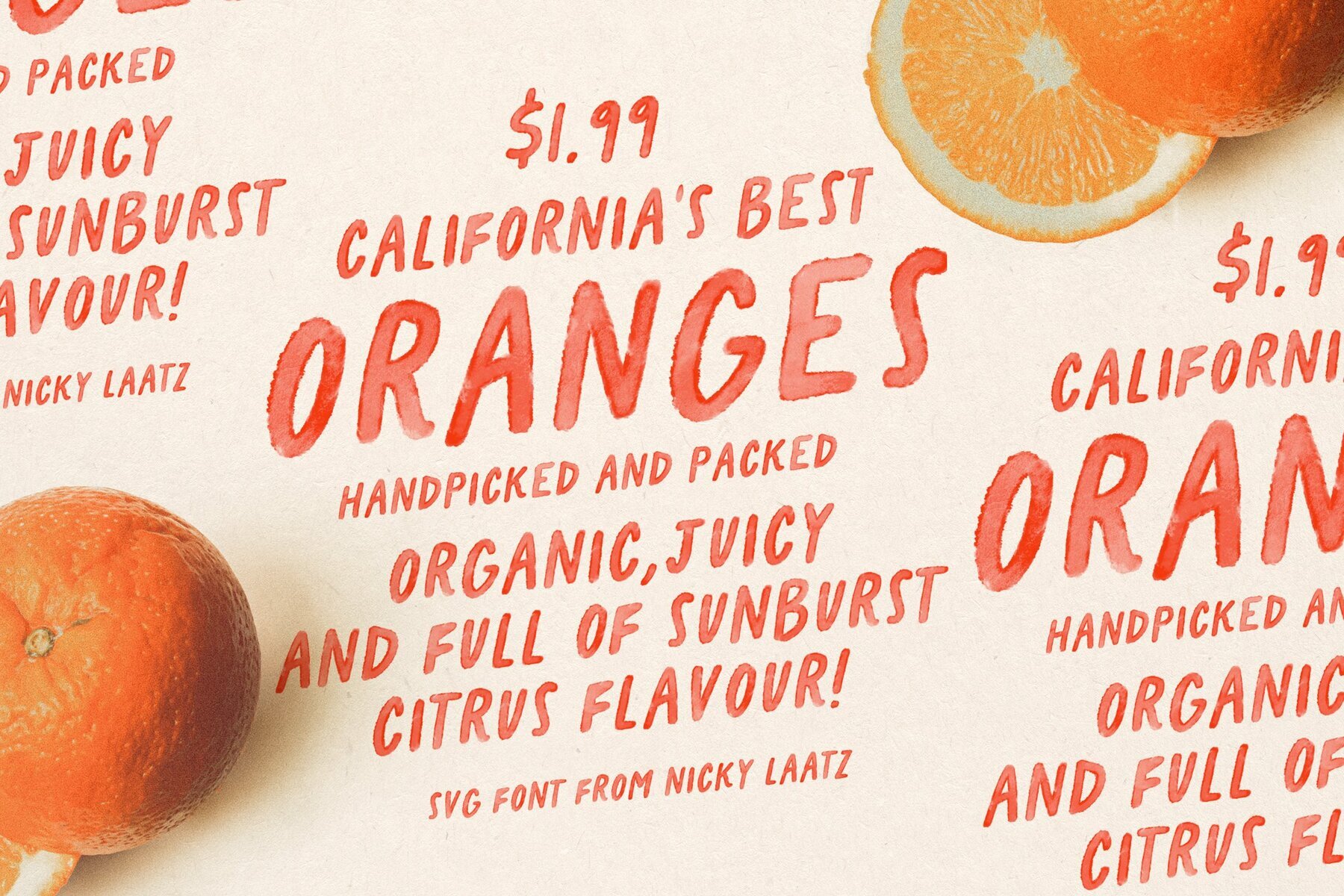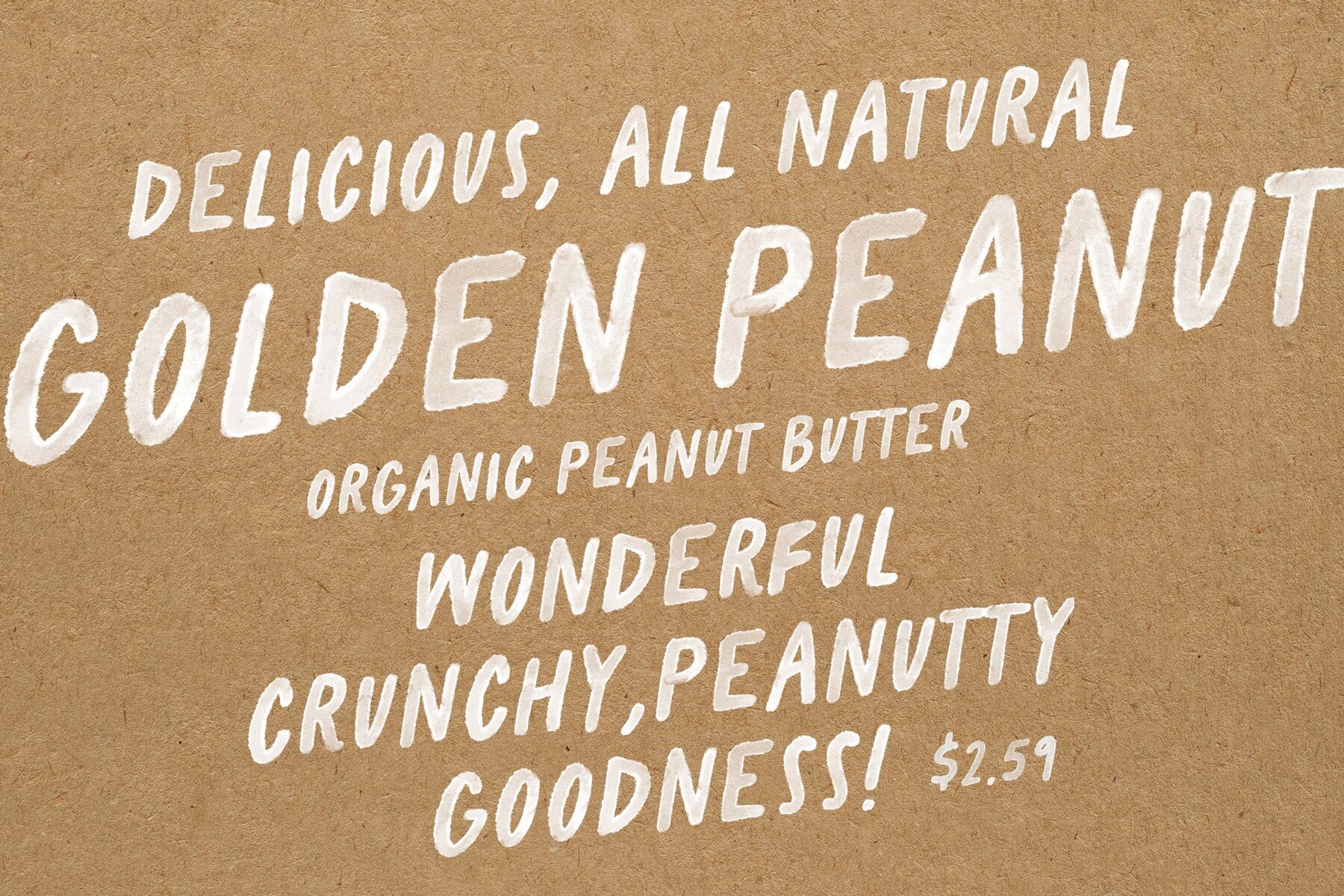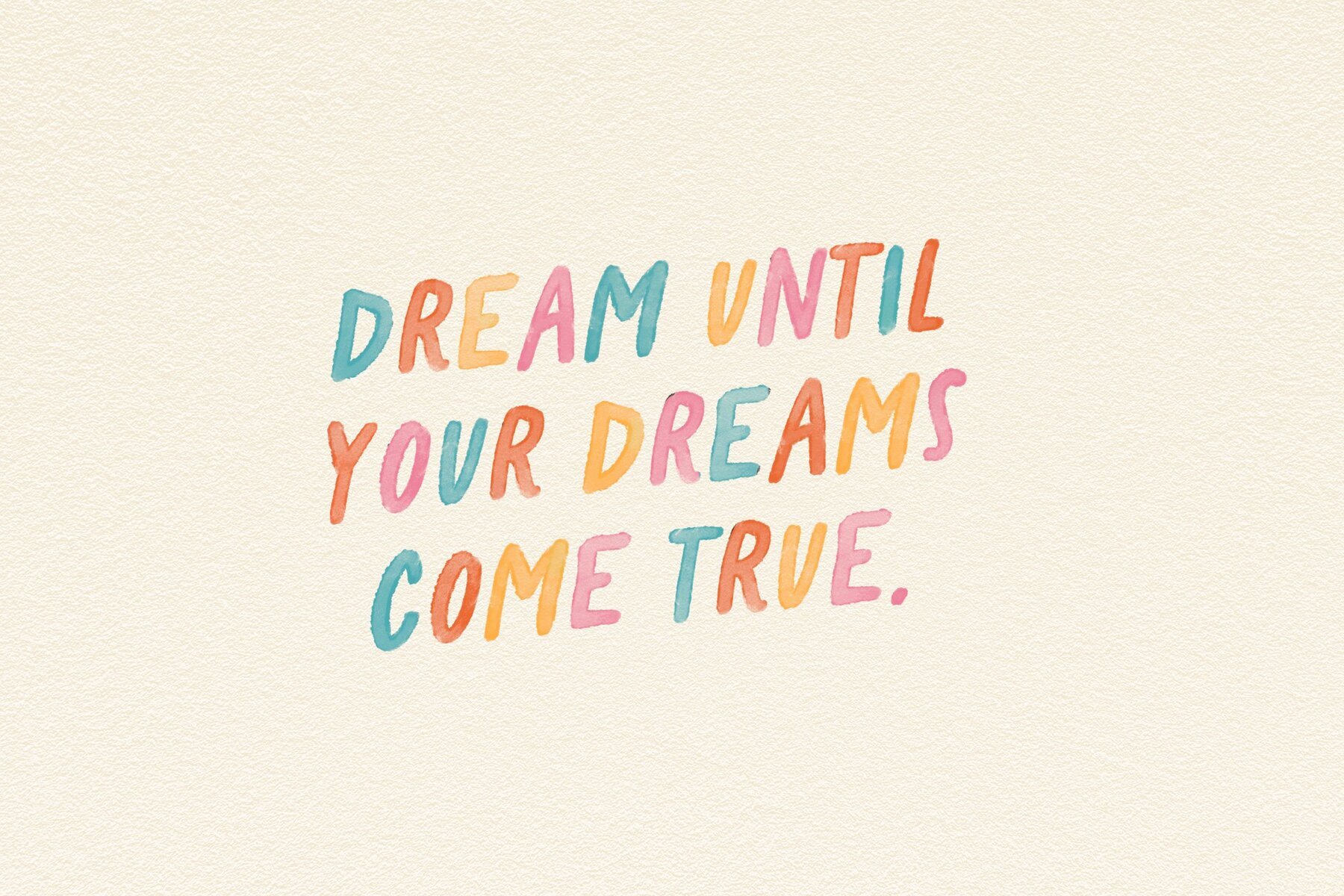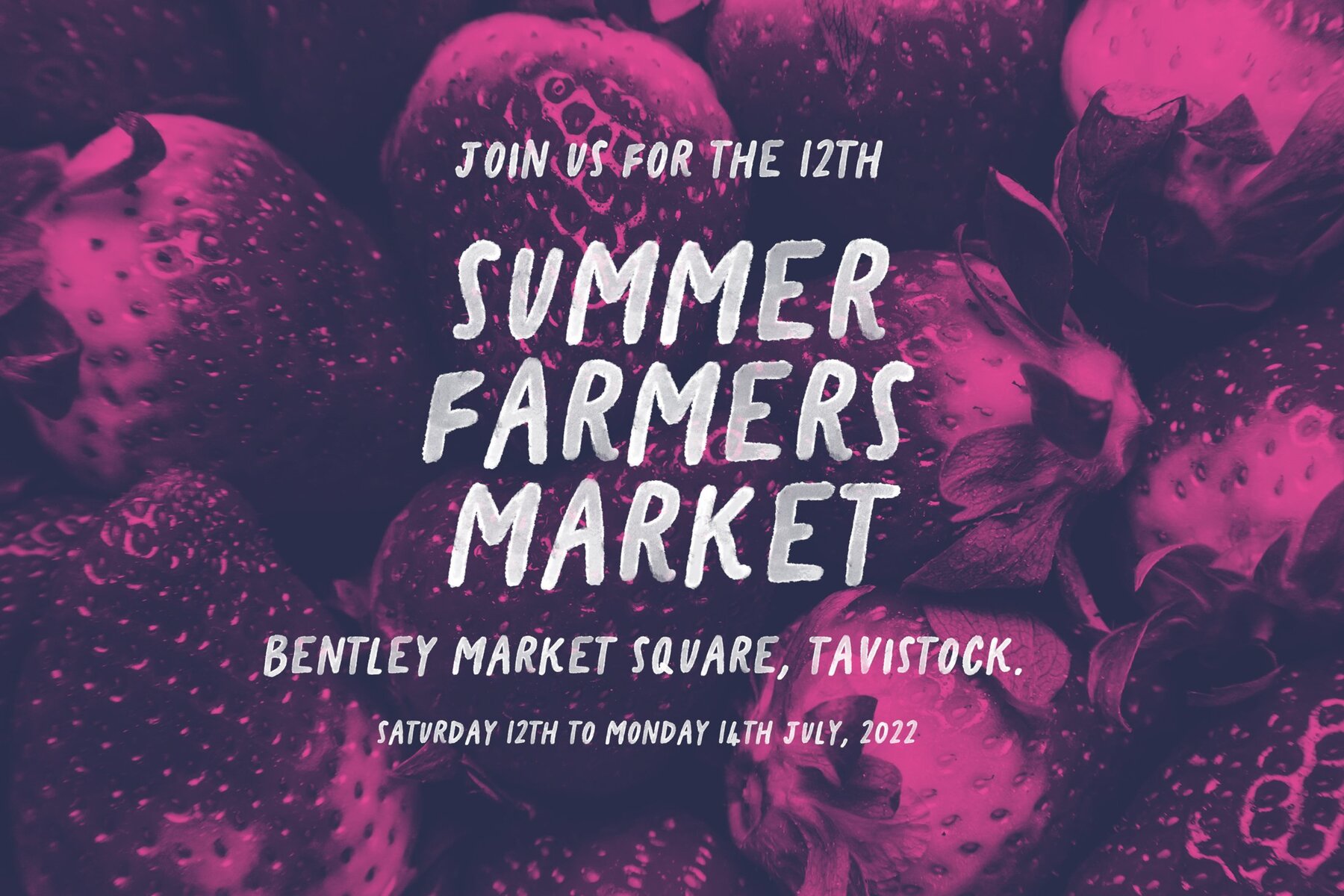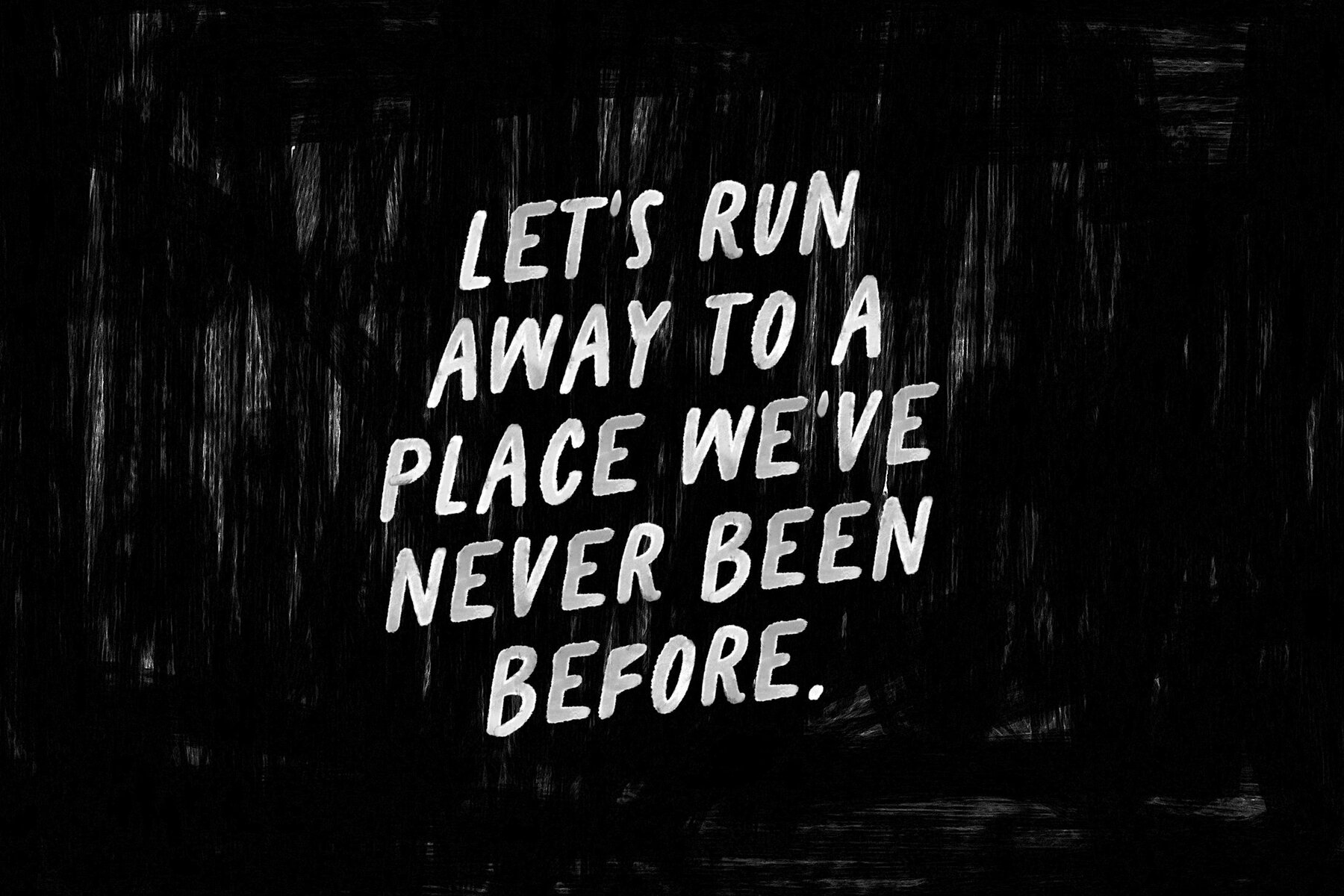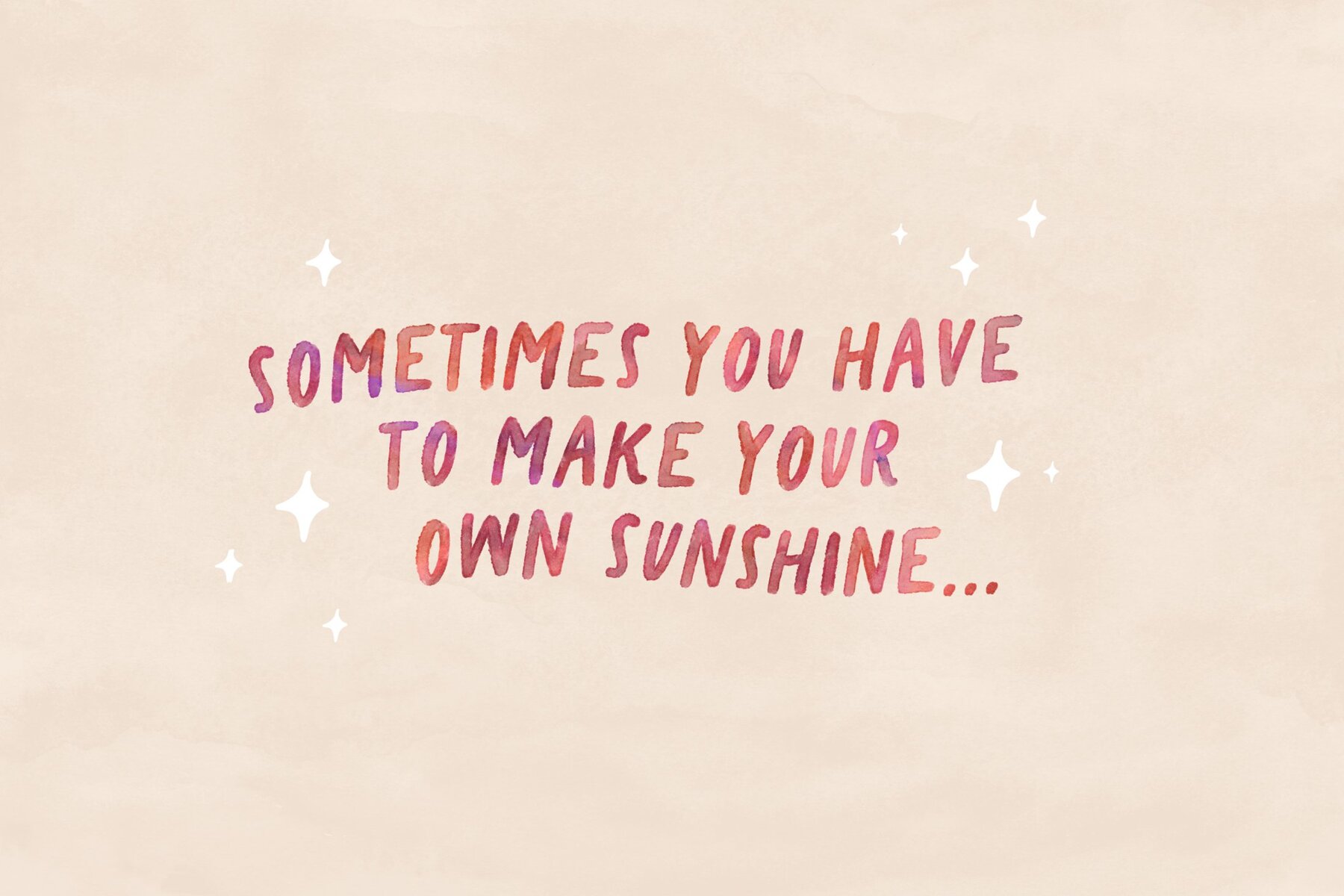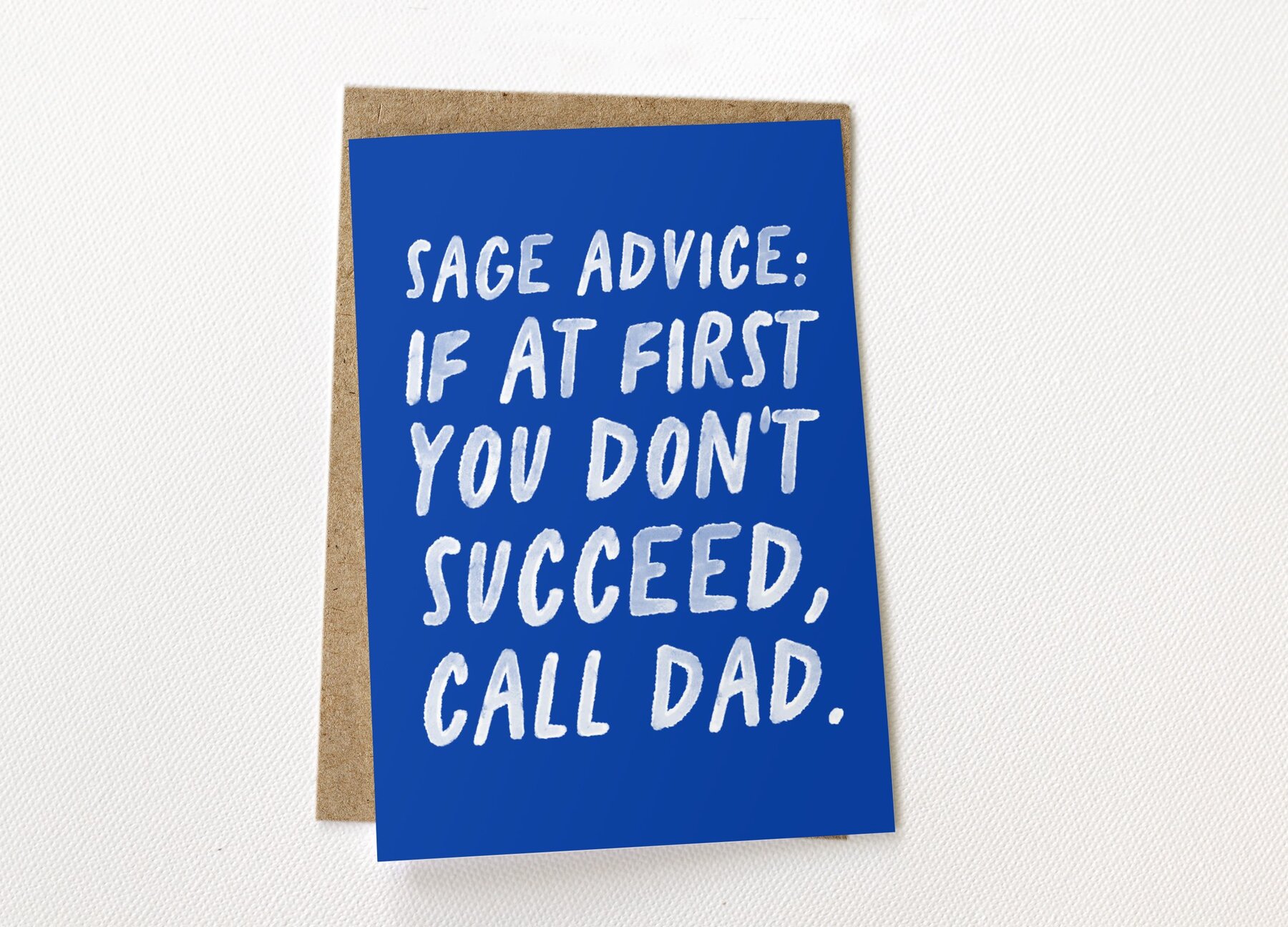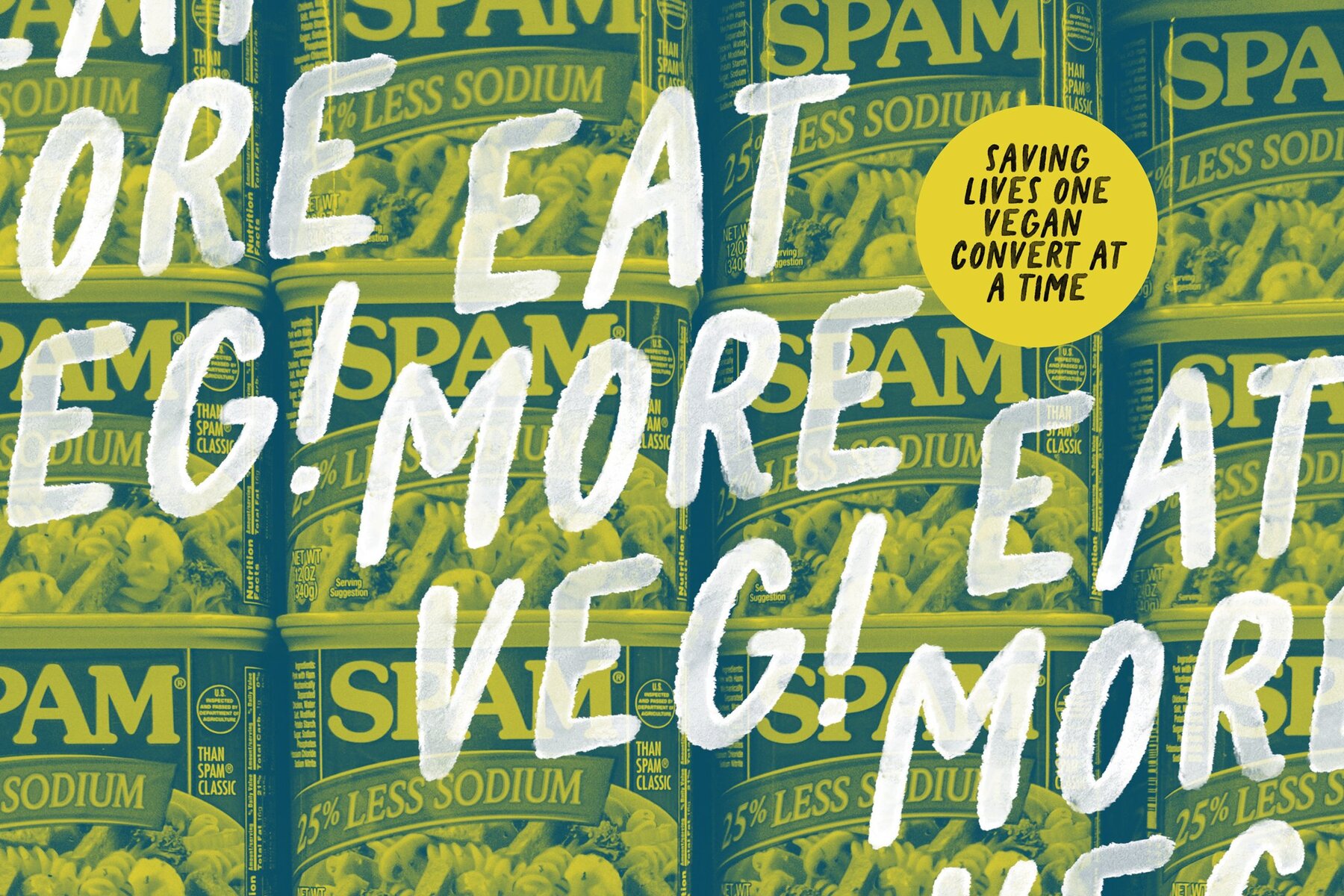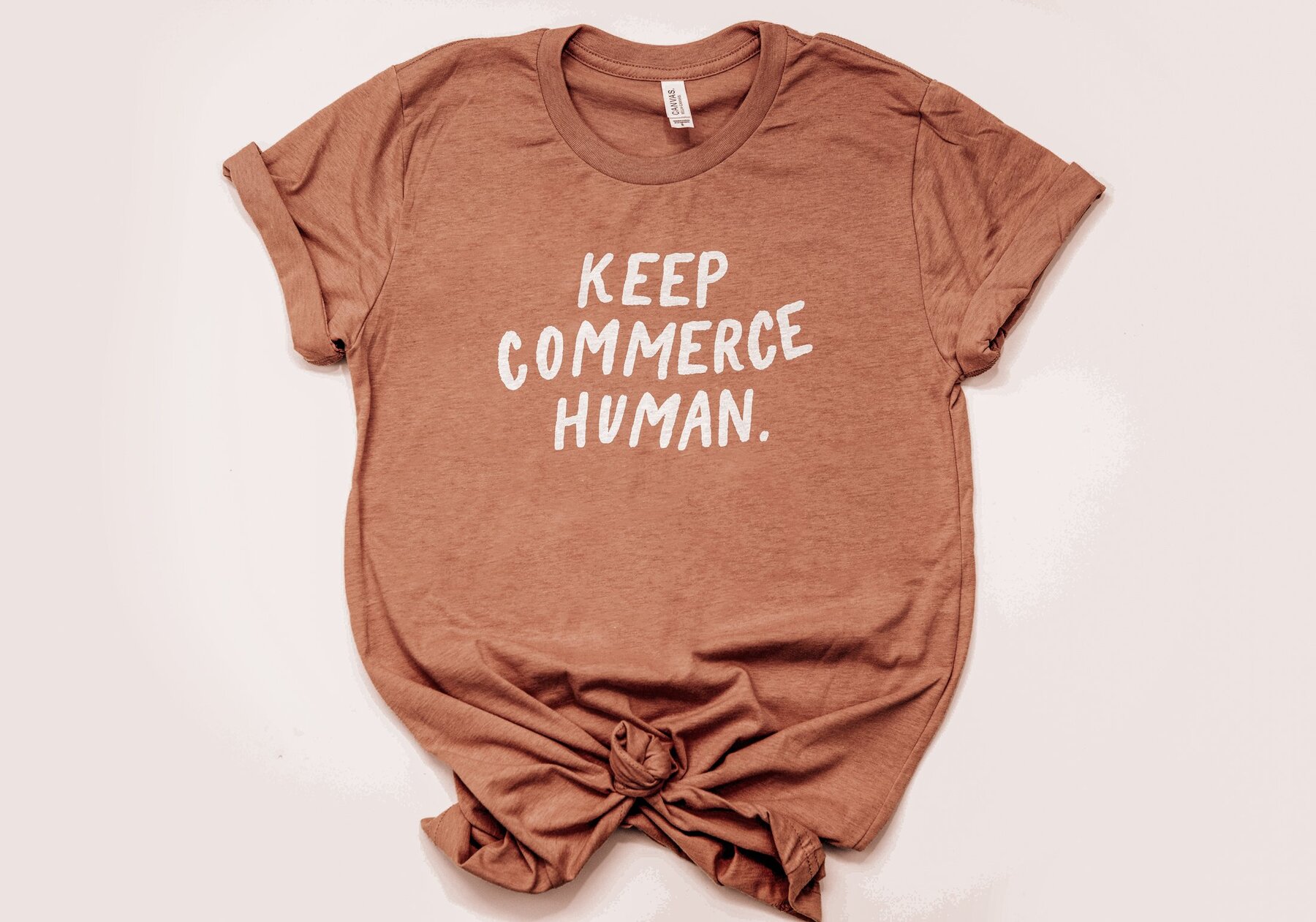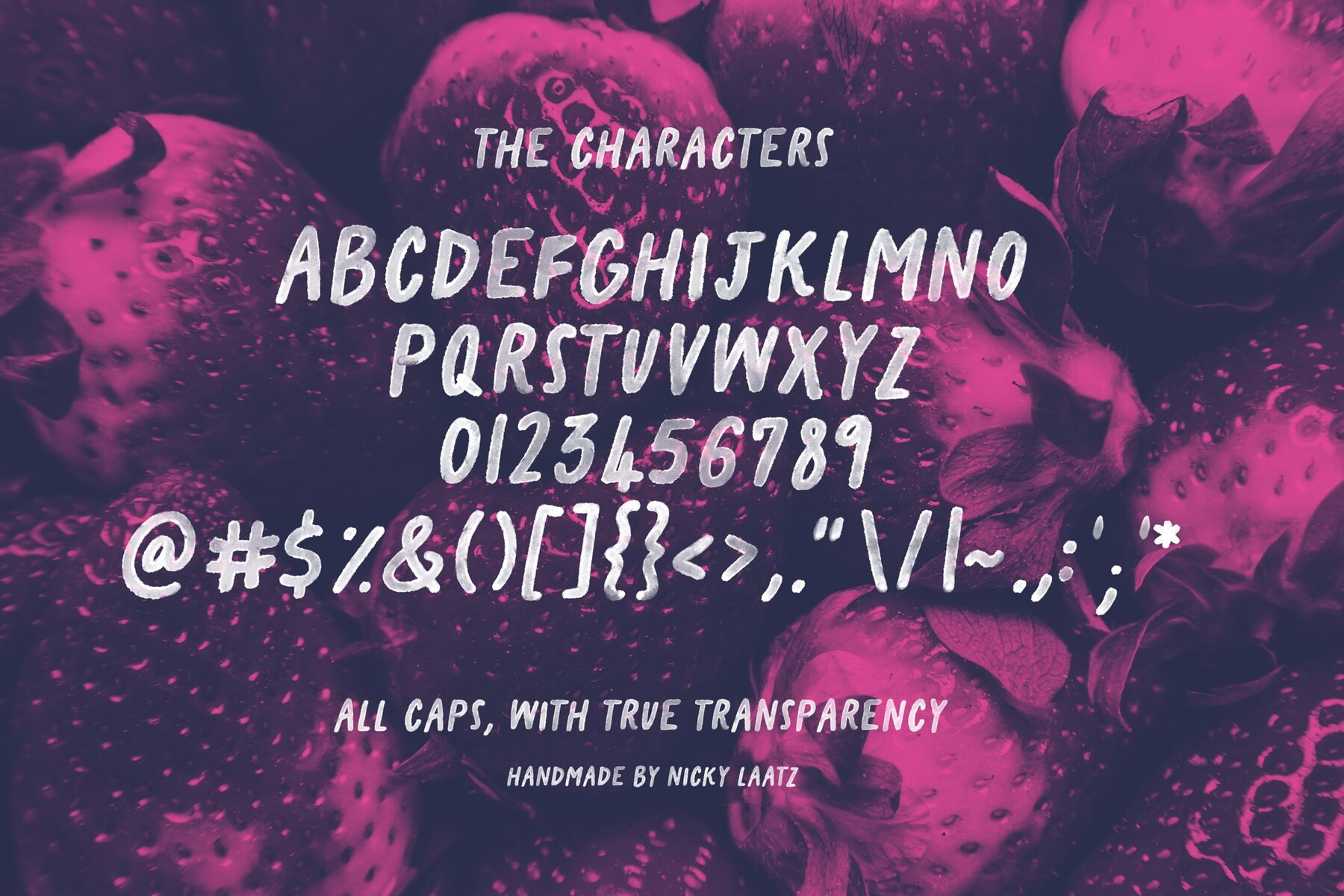
Inject a burst of dynamic creativity into your designs with the vivid California Oranges SVG font by the renowned designer, Nicky Laatz. This modern, watercolour all-caps font is not just another typeface; it's a revolution in typography, taking branding aesthetics to unmatched heights. Suitable for graphic designers and marketing firms, this font offers an innovative and fresh appeal to design layouts, particularly those in the realm of brand identities, social media marketing, and product labels. As an added advantage, SVG fonts are fully supported by Photoshop CC 2017 or higher, and Illustrator CC 2018 or higher. This ensures ease of integration into your design workflow, adding a refreshing twist to typographic expressions while maintaining professionalism. Hand-crafted with a friendly feel and vibrant appeal, California Oranges SVG will effortlessly enhance your design's appeal. Key Features include:Transform your Creative Process with the California Oranges SVG by Nicky Laatz